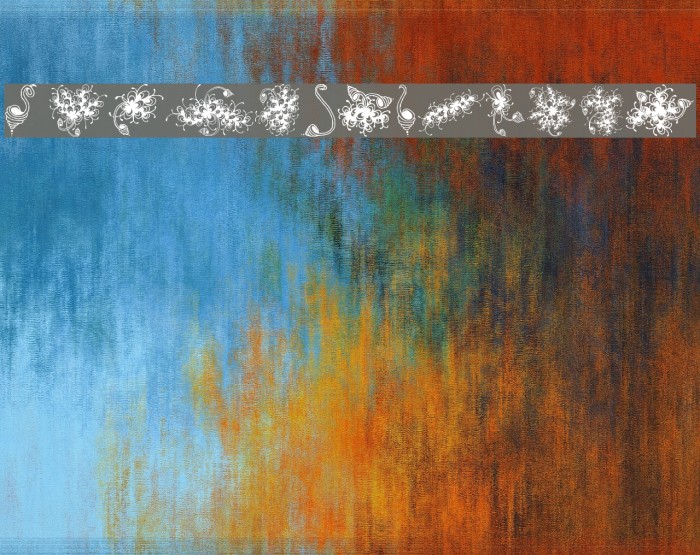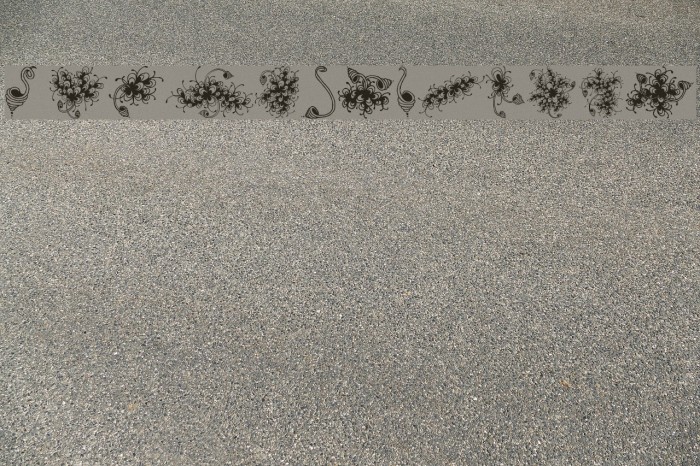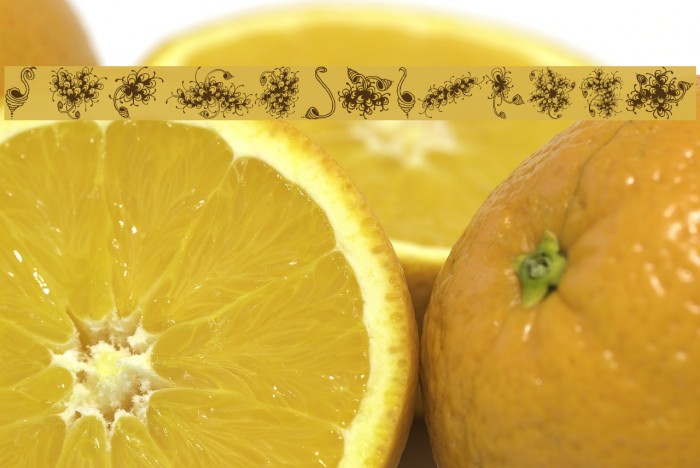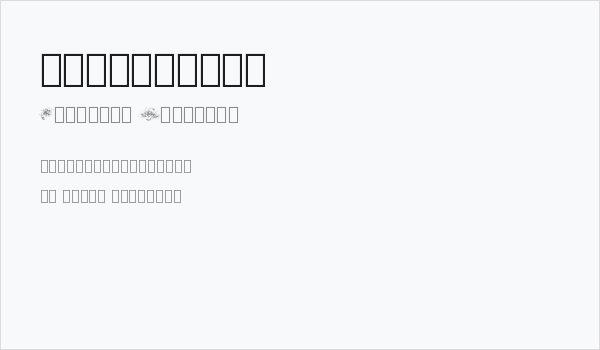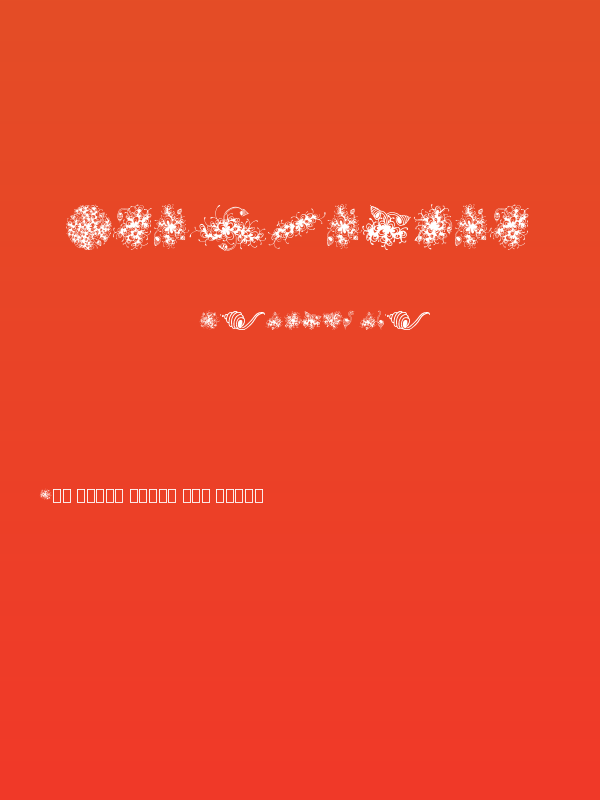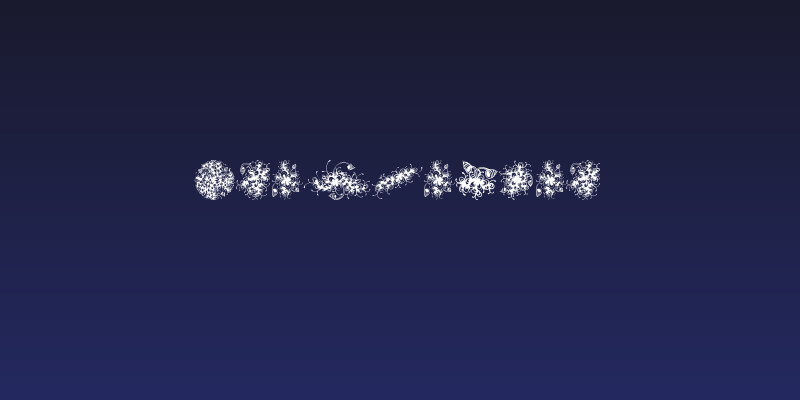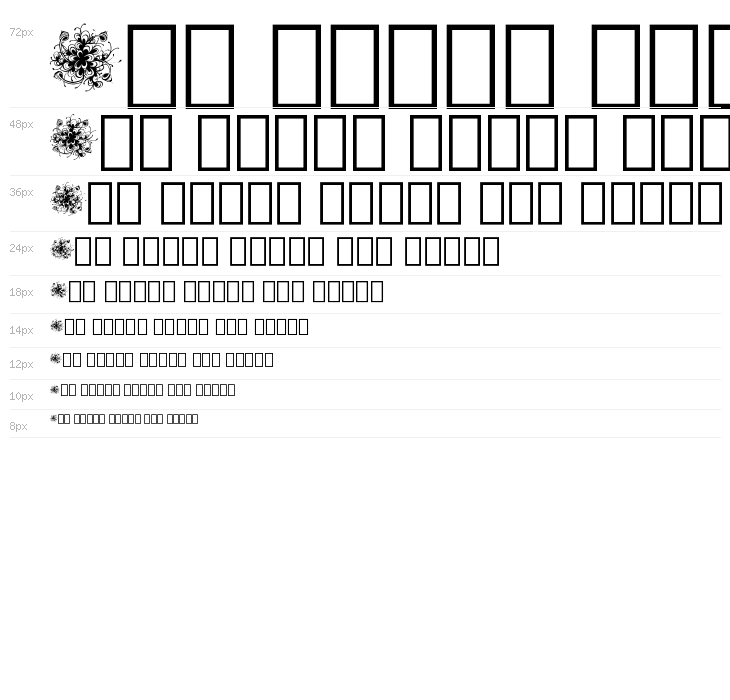
zendingone Font
zendingone Description
This is not a valid font. The image contains decorative floral and abstract designs that resemble ornamental patterns rather than a functional typeface. These intricate designs are more suited for embellishments and artistic projects rather than text communication. The absence of recognizable alphanumeric characters makes it unsuitable for standard text applications.
| Use Case | Artistic embellishments, decorative borders. |
| Proposed Projects | These designs could be used for decorative borders, artistic embellishments, or as elements in graphic design projects. |